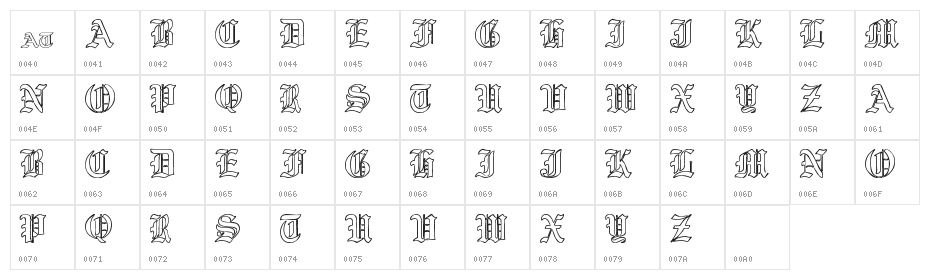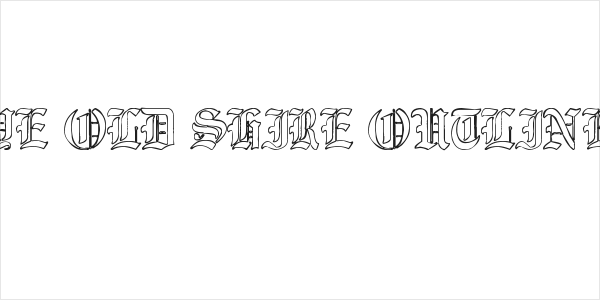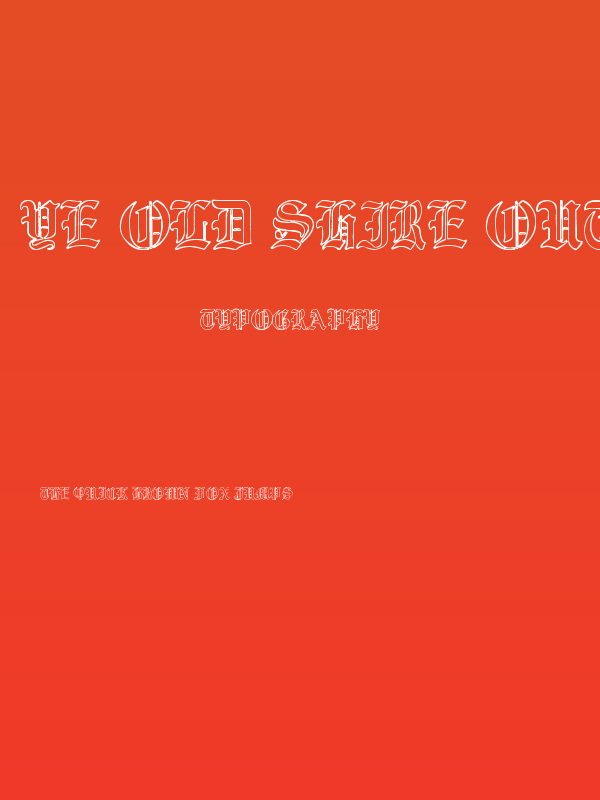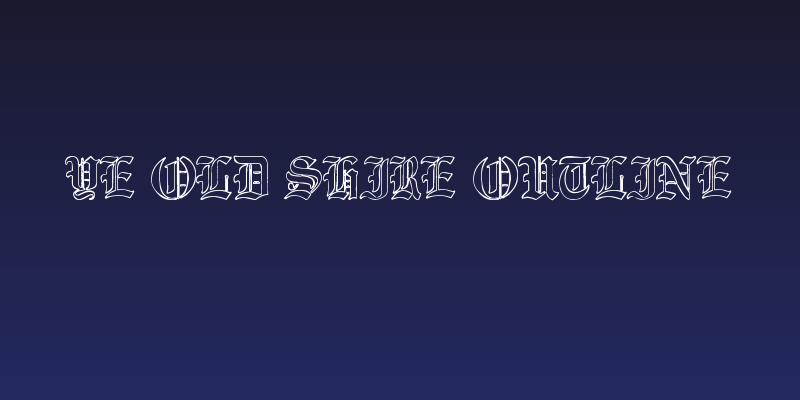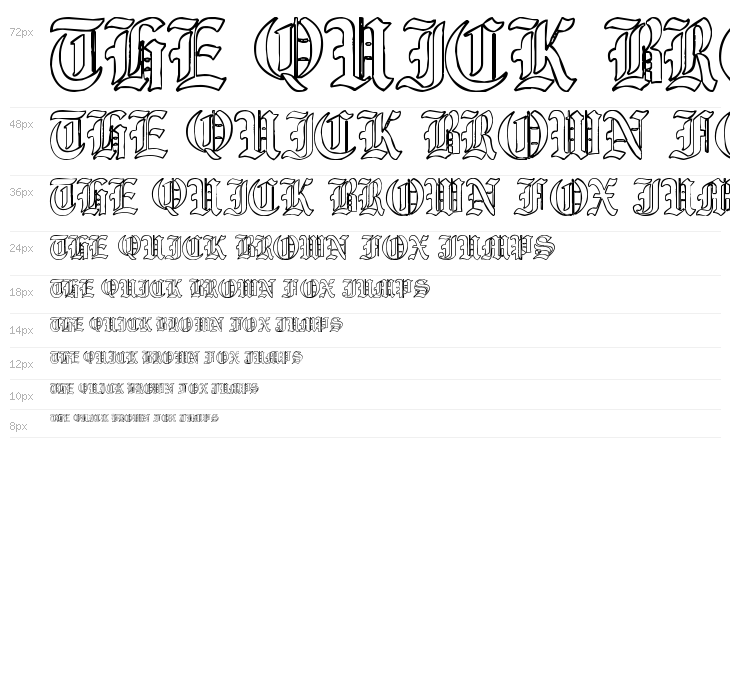
Ye Old Shire Outline Font
Ye Old Shire Outline Description
This font features an ornate and intricate design reminiscent of medieval script, characterized by its decorative outlines and elaborate serifs. The uppercase letters exhibit a strong presence with their bold, angular strokes and sharp edges, creating a sense of historical elegance. The font's outline style adds a unique dimension, making it suitable for projects that require a touch of vintage or historical flair. Its detailed design suggests a careful attention to traditional calligraphic elements, making it ideal for use in themed designs or period pieces.
| Proposed Projects | Ideal for historical-themed designs, invitations, book covers, or any project requiring a vintage or medieval aesthetic. |